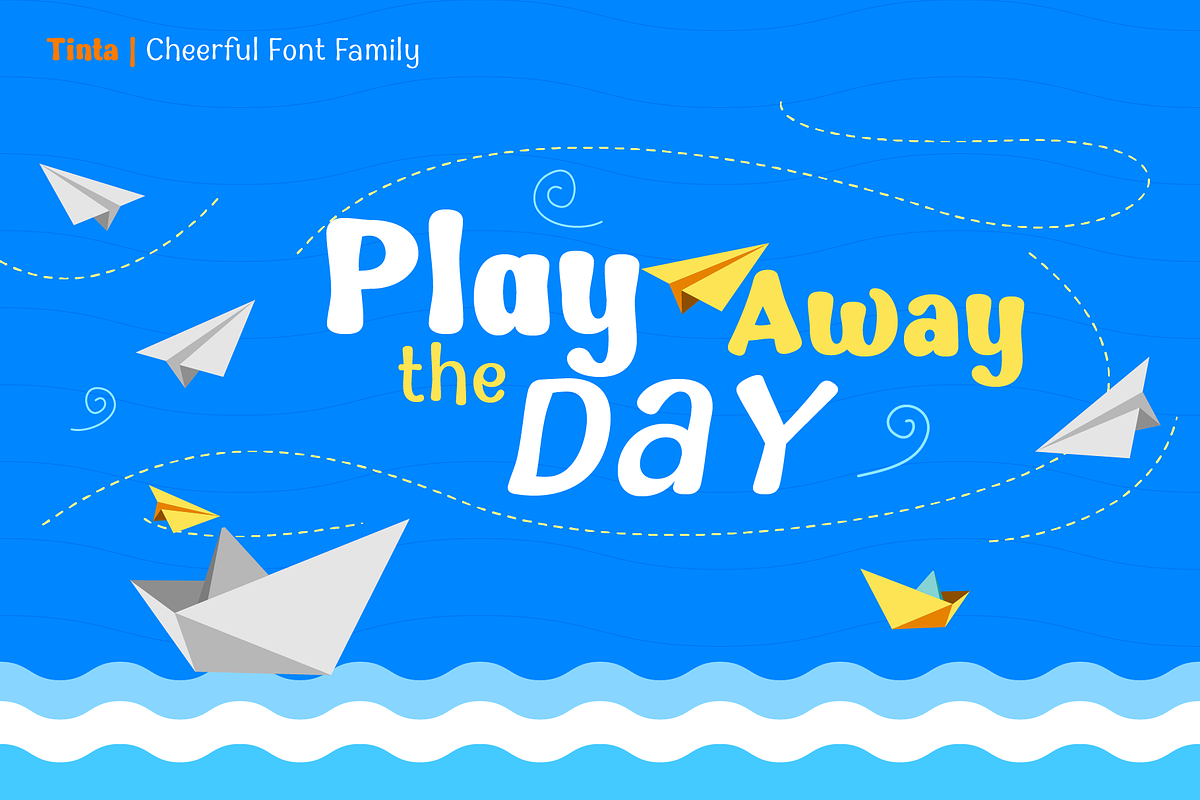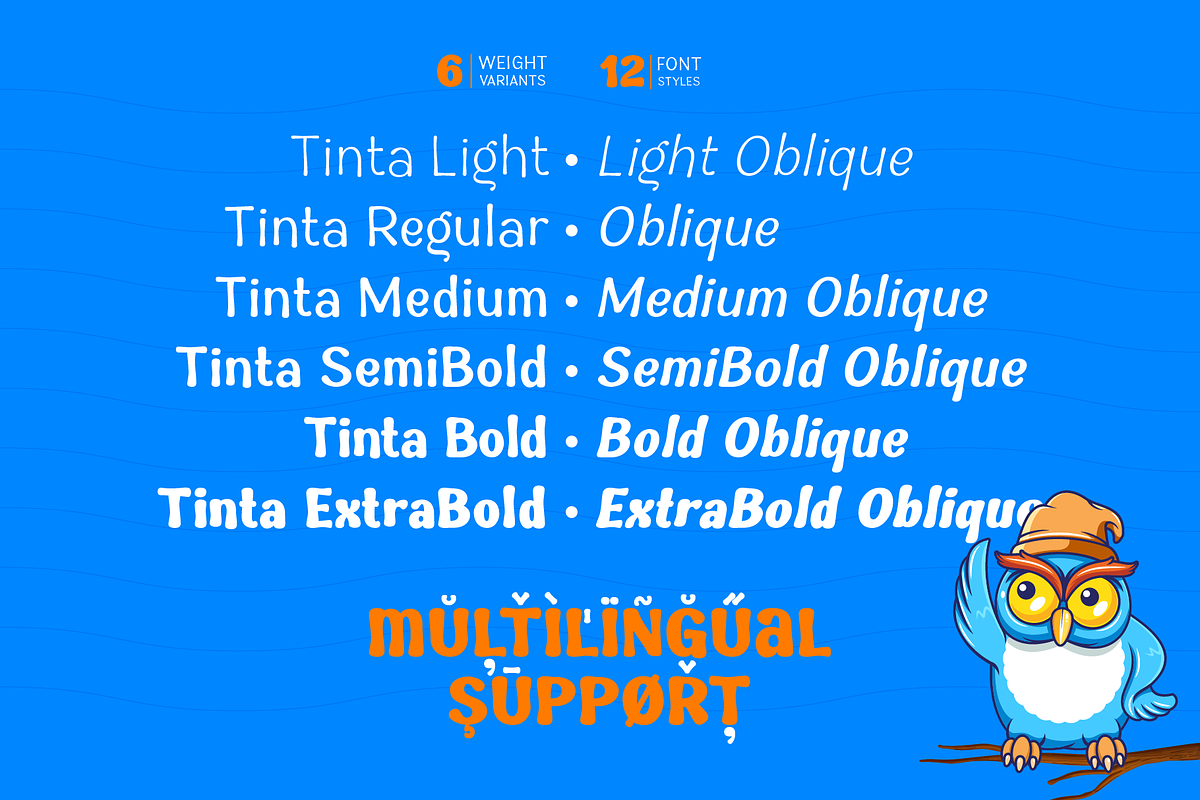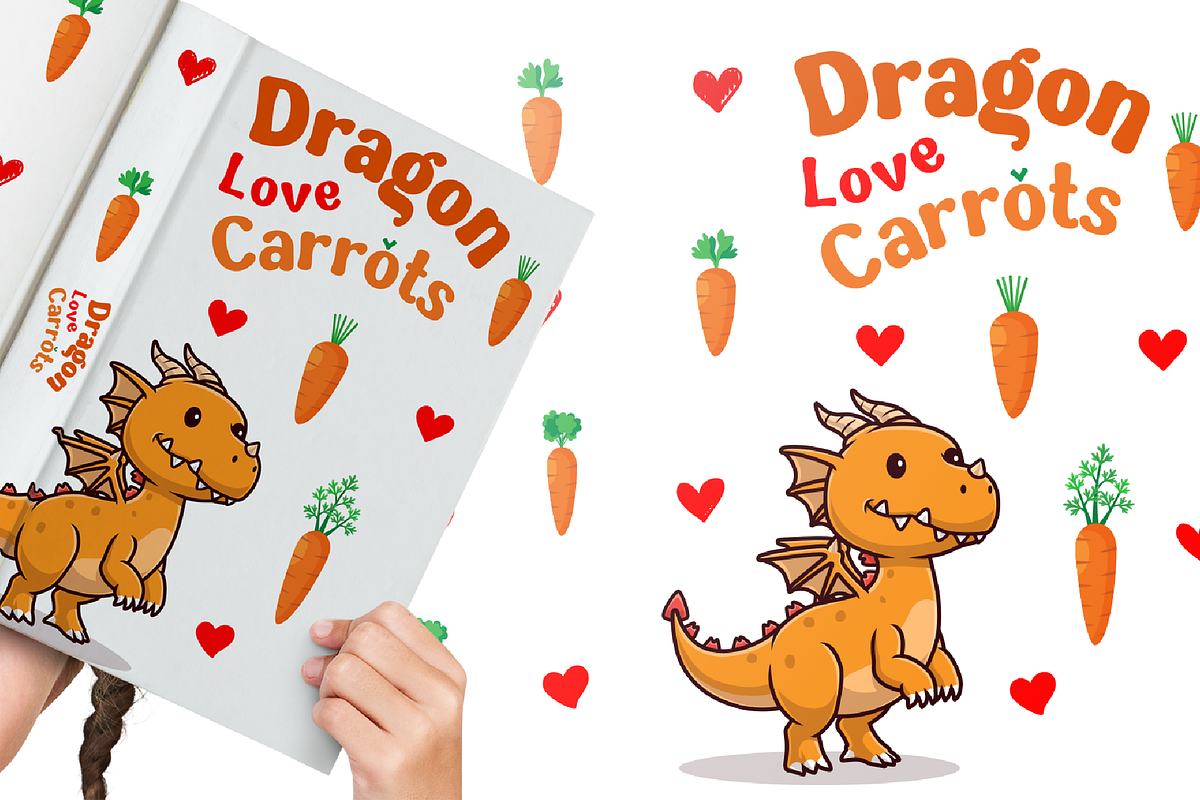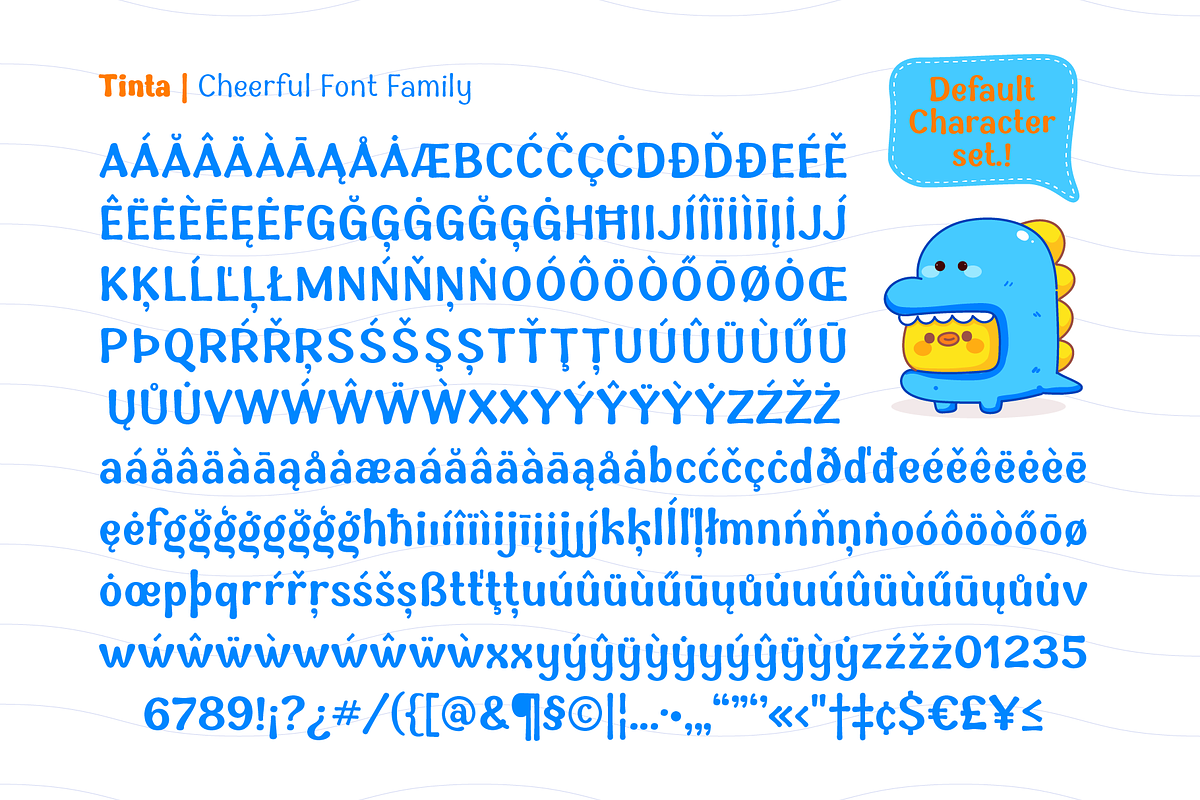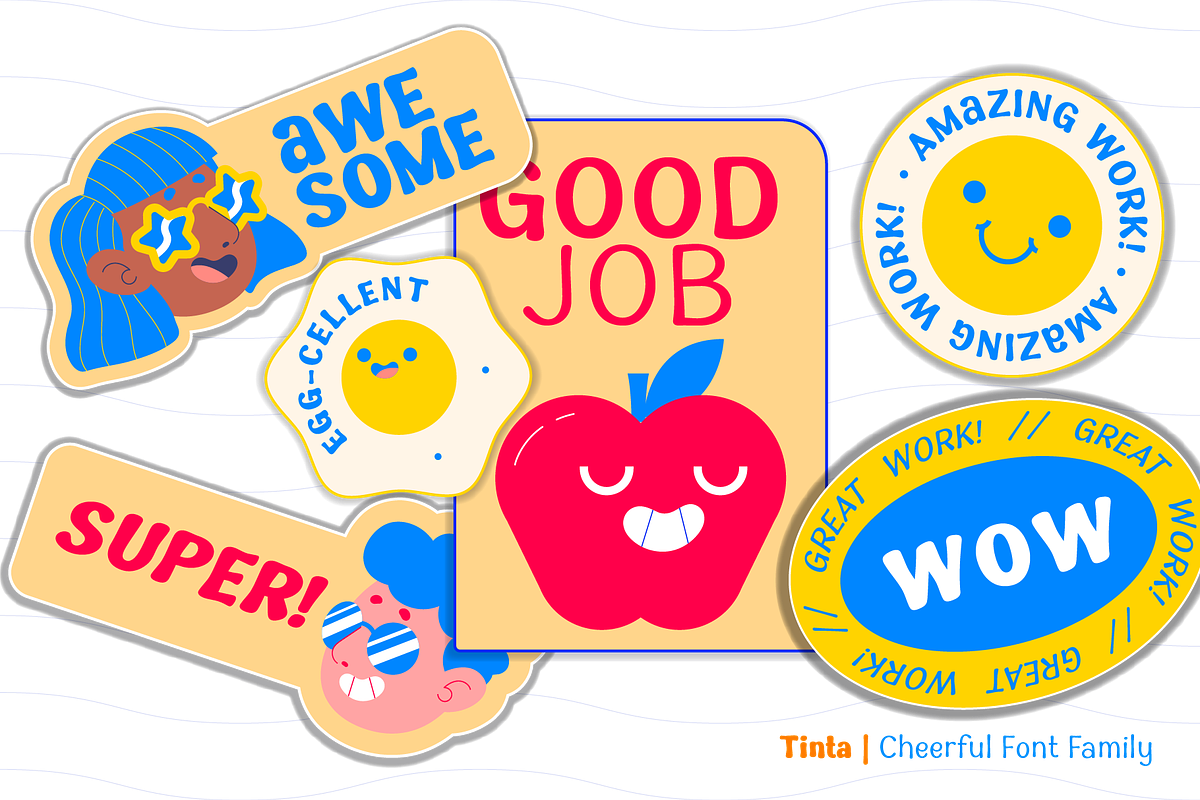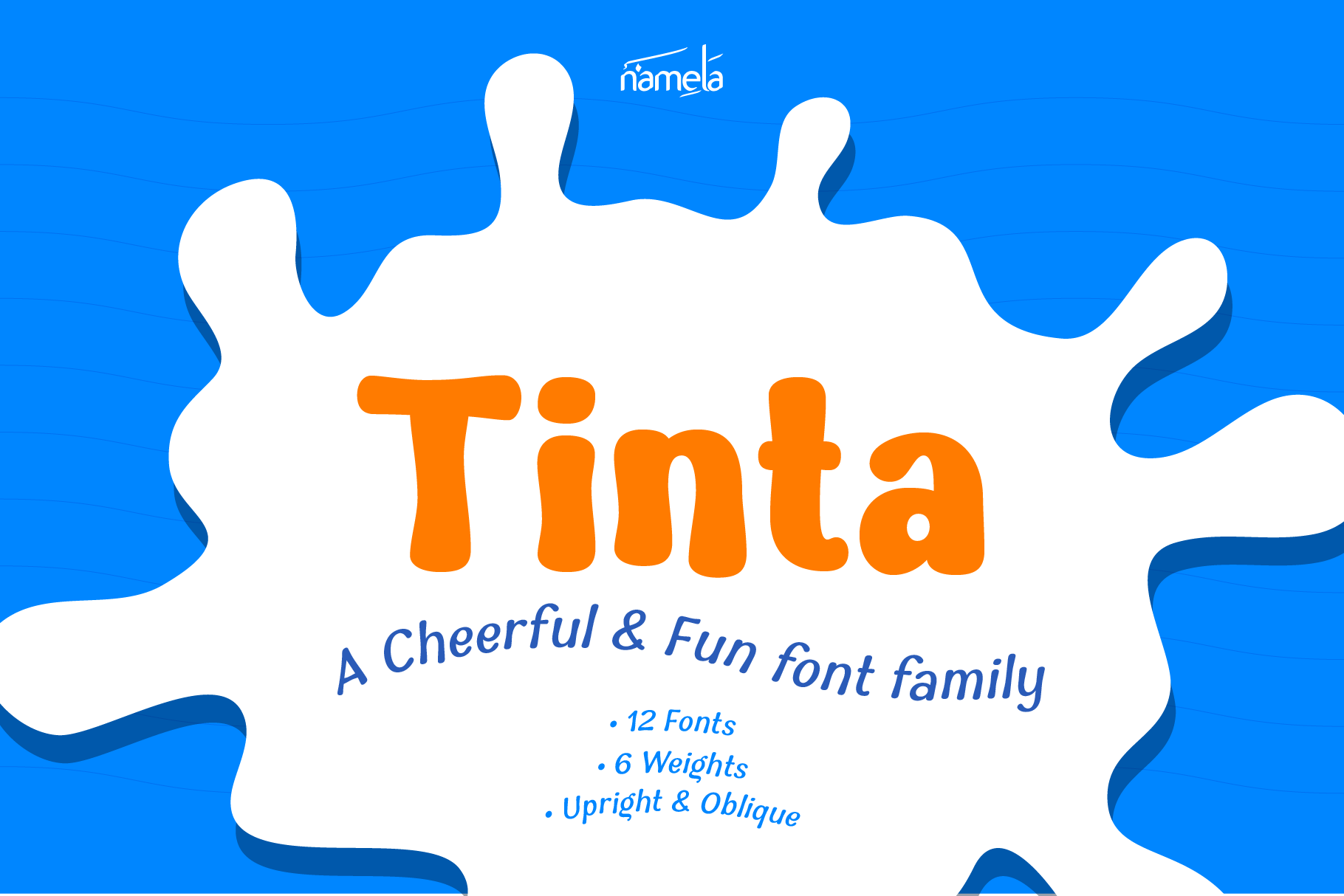
Tinta Font | A Fun and Cheerful Font
Tinta Playful font Inspired by handwritten lettering touch. Tinta means ‘ink’. Every character has a terminal that resembles flowing ink.. Comes with 6 weight variants from Light to ExtraBold, each has Oblique version.
Tinta can be use for Headline, branding, packaging, advertising, quotes and where ever you need fun and playful design